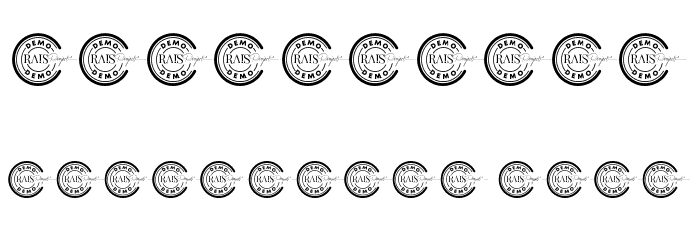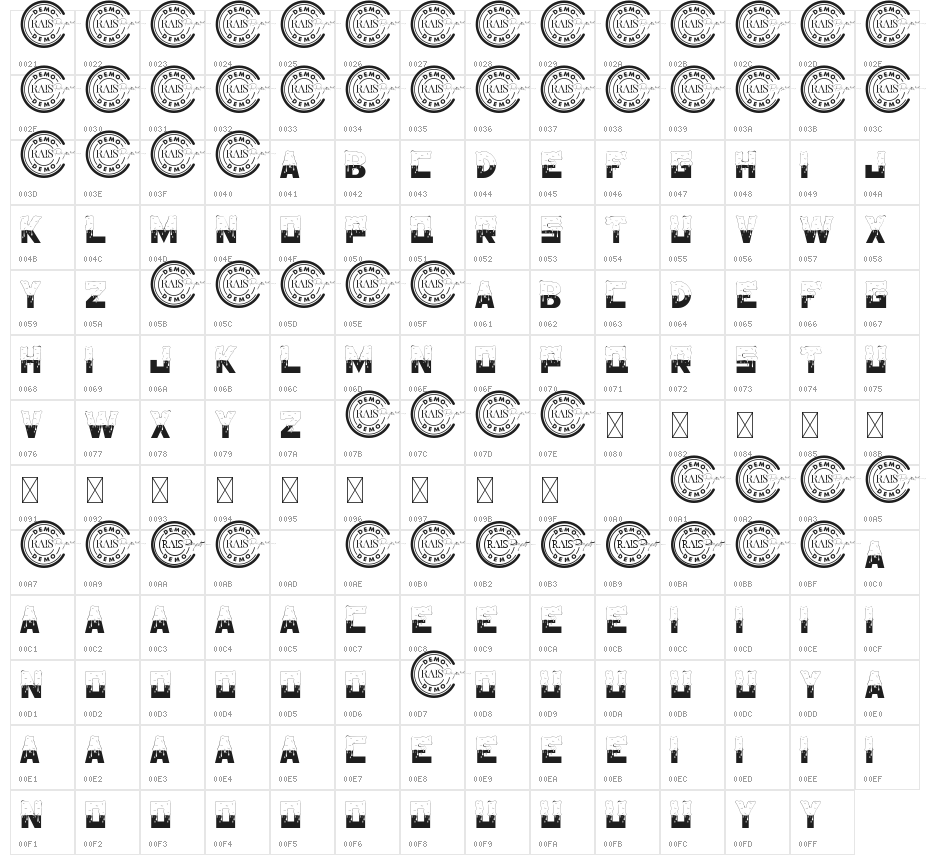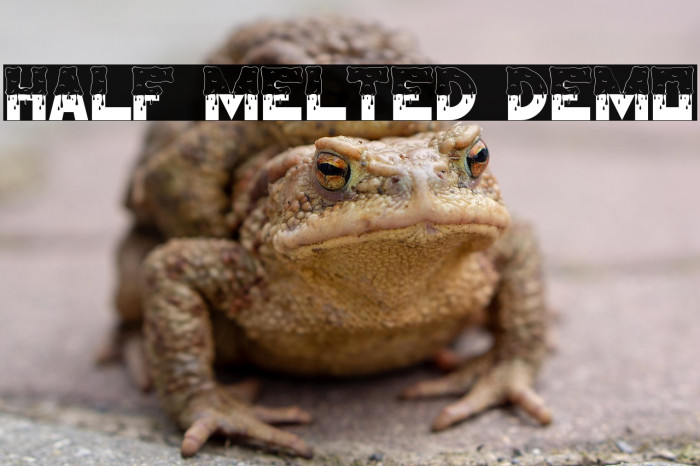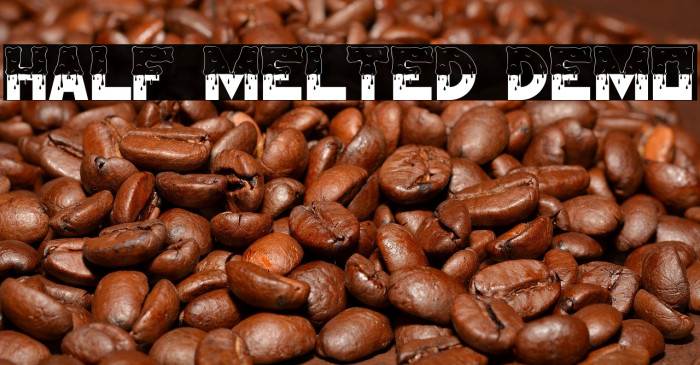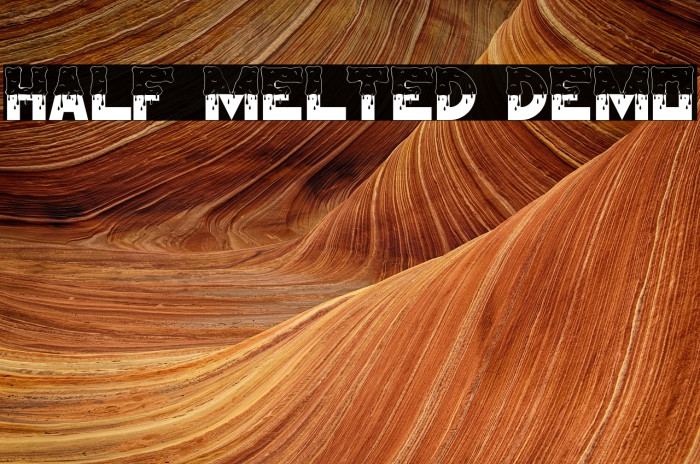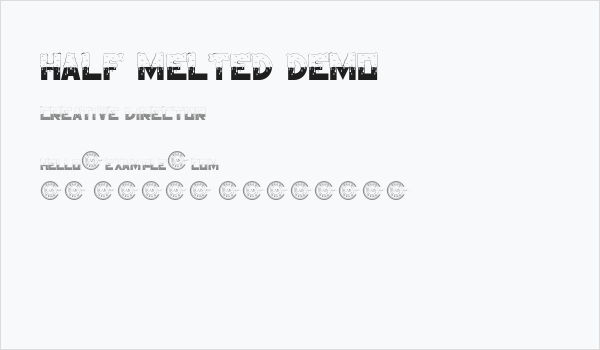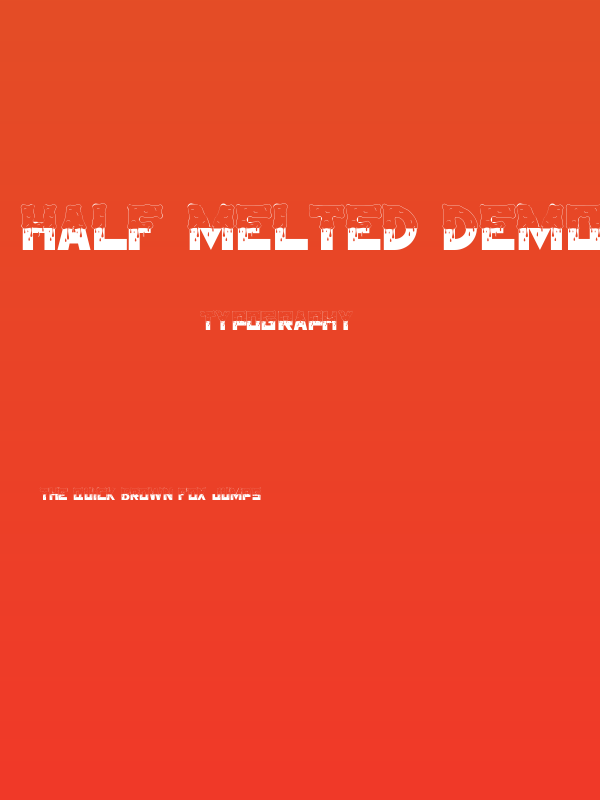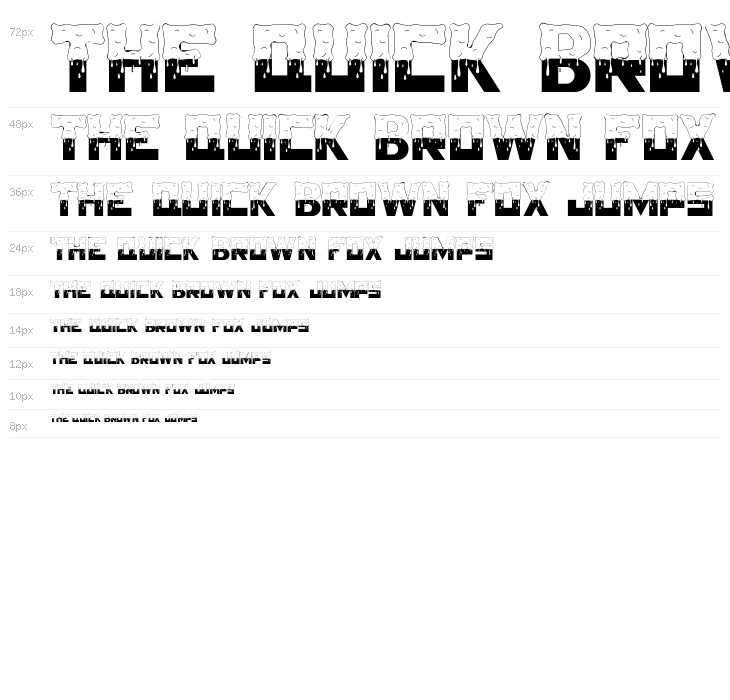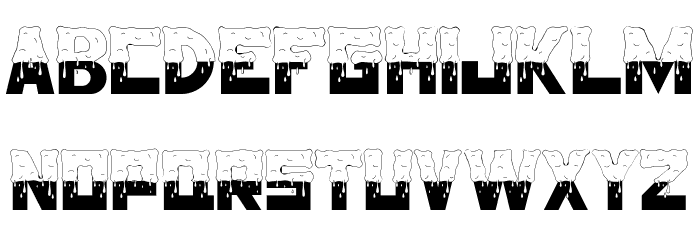
Half Melted Demo Font
Half Melted Demo Description
This font features a unique and playful design with a melting effect that gives the impression of letters dripping or dissolving. The uppercase and lowercase characters maintain a consistent style, with bold, blocky forms that are partially filled with a melting texture. The numbers and special characters follow the same theme, creating a cohesive and visually striking appearance. The font's design is both eye-catching and whimsical, making it ideal for creative projects that require a fun and engaging typeface.
Proposed ProjectsIdeal for Halloween-themed graphics, children's book covers, playful posters, and creative branding projects.